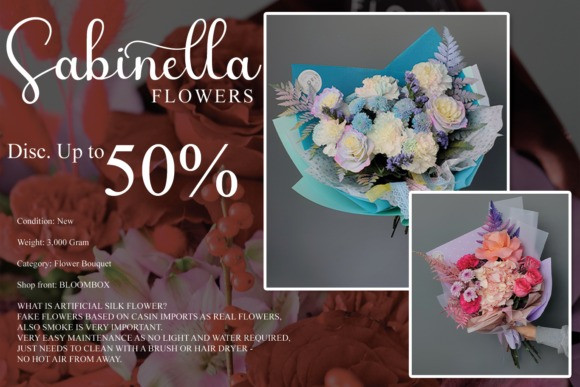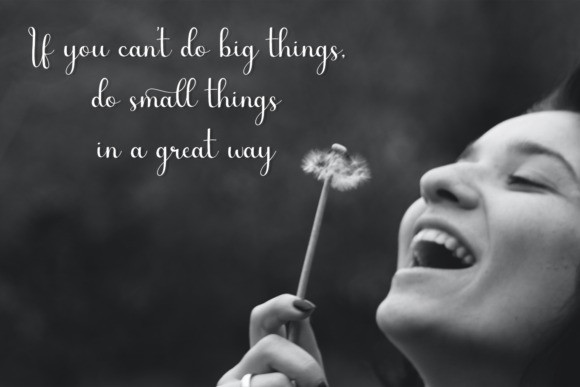
My Jolly Font
My Jolly Font is a flowing and graceful script font. Fall for its ravishing style and use it to create gorgeous wedding invitations, beautiful stationary art, eye-catching social media posts, and much more!